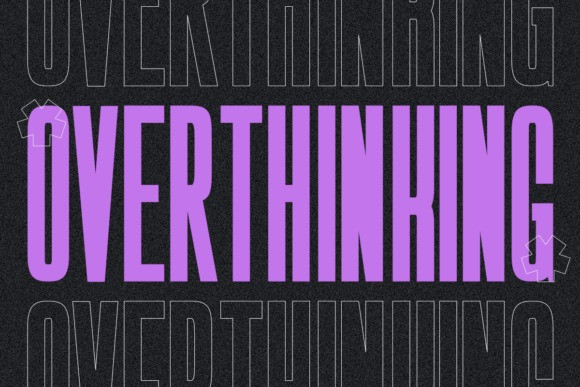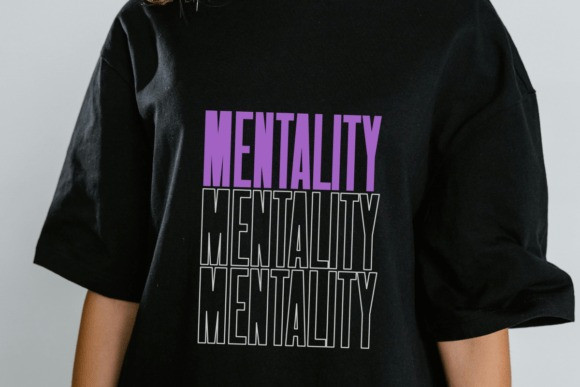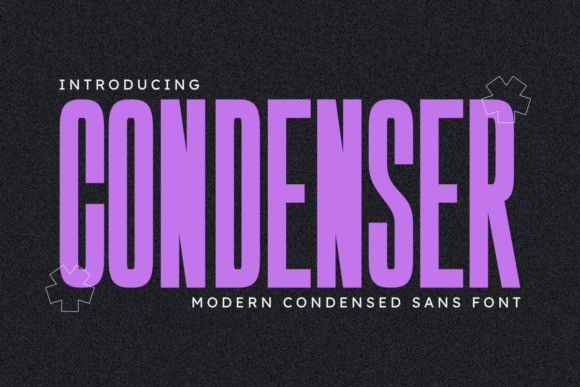
Condenser Font
Condenser Font is a modern condensed sans serif font that packs maximum impact into minimal width — perfect for bold headlines, editorial layouts, branding, and more.
Its sleek, tall design makes it ideal for posters, magazine titles, product packaging, film covers, merchandise, and any design where strong presence meets elegant simplicity. Whether you’re creating for fashion, startup branding, or urban streetwear, Condenser ensures your message grabs attention.